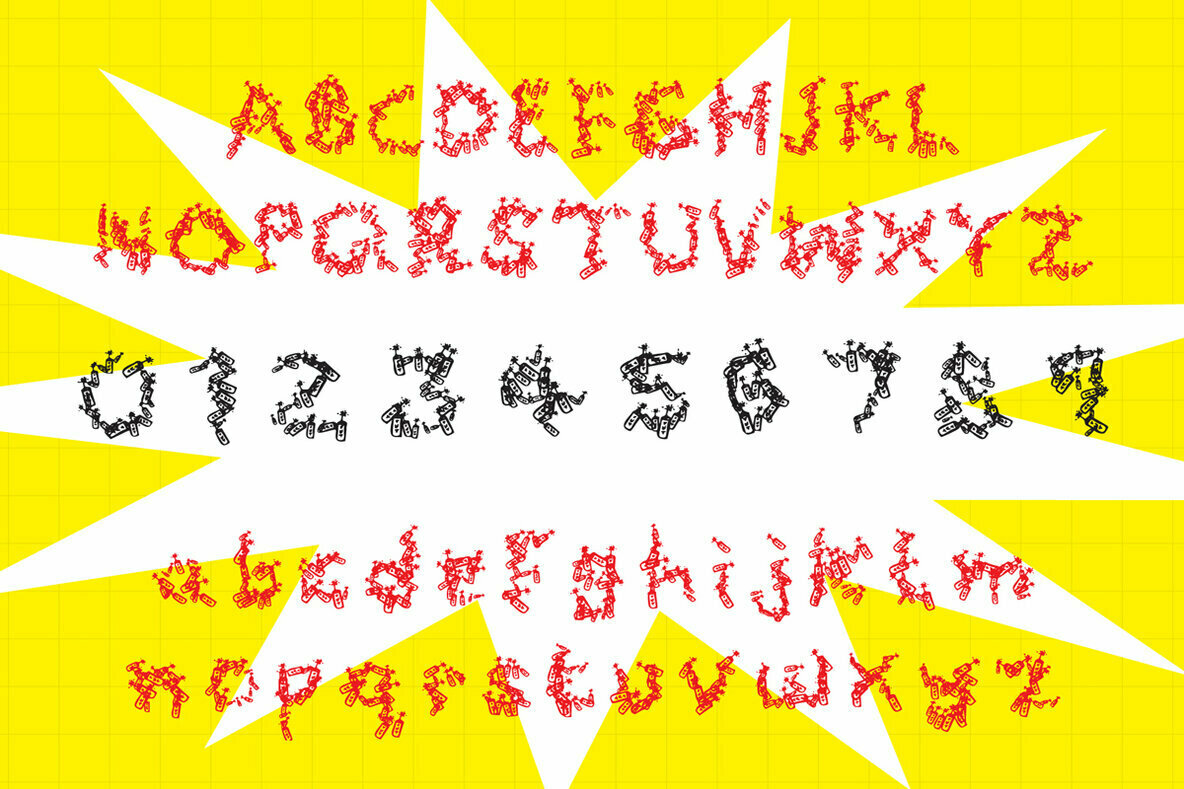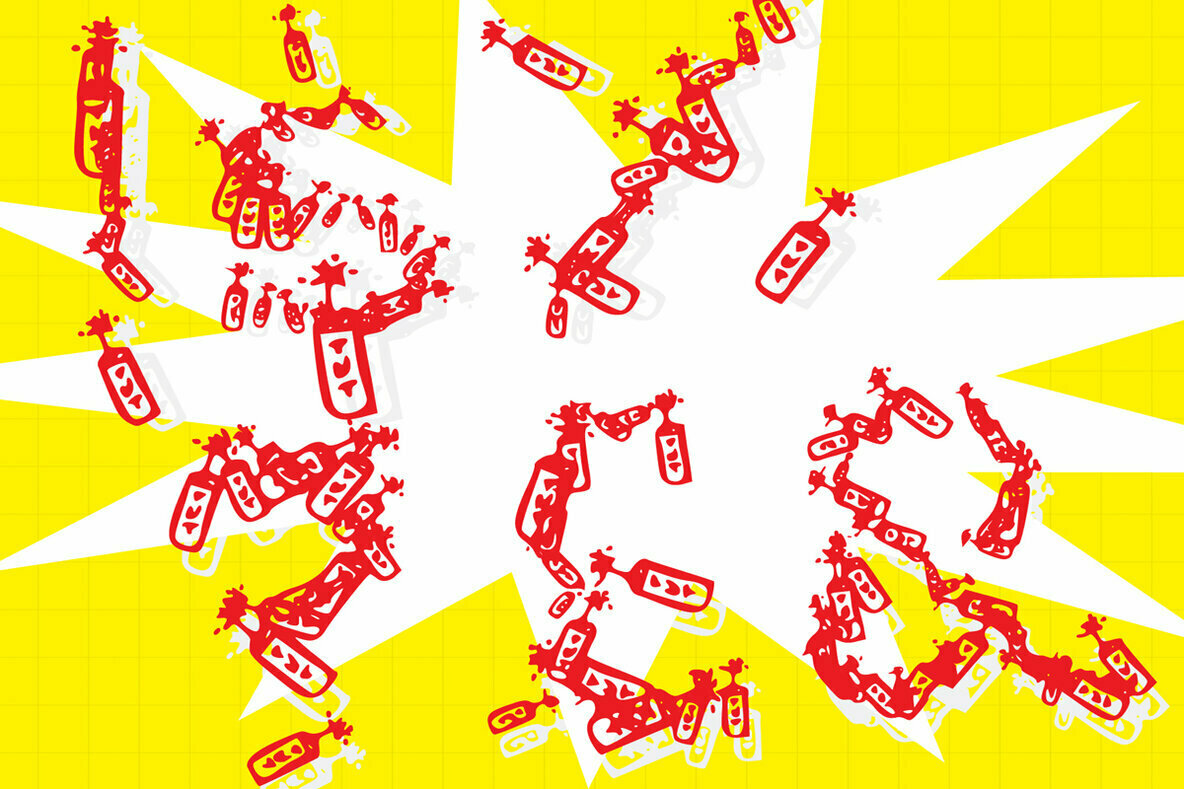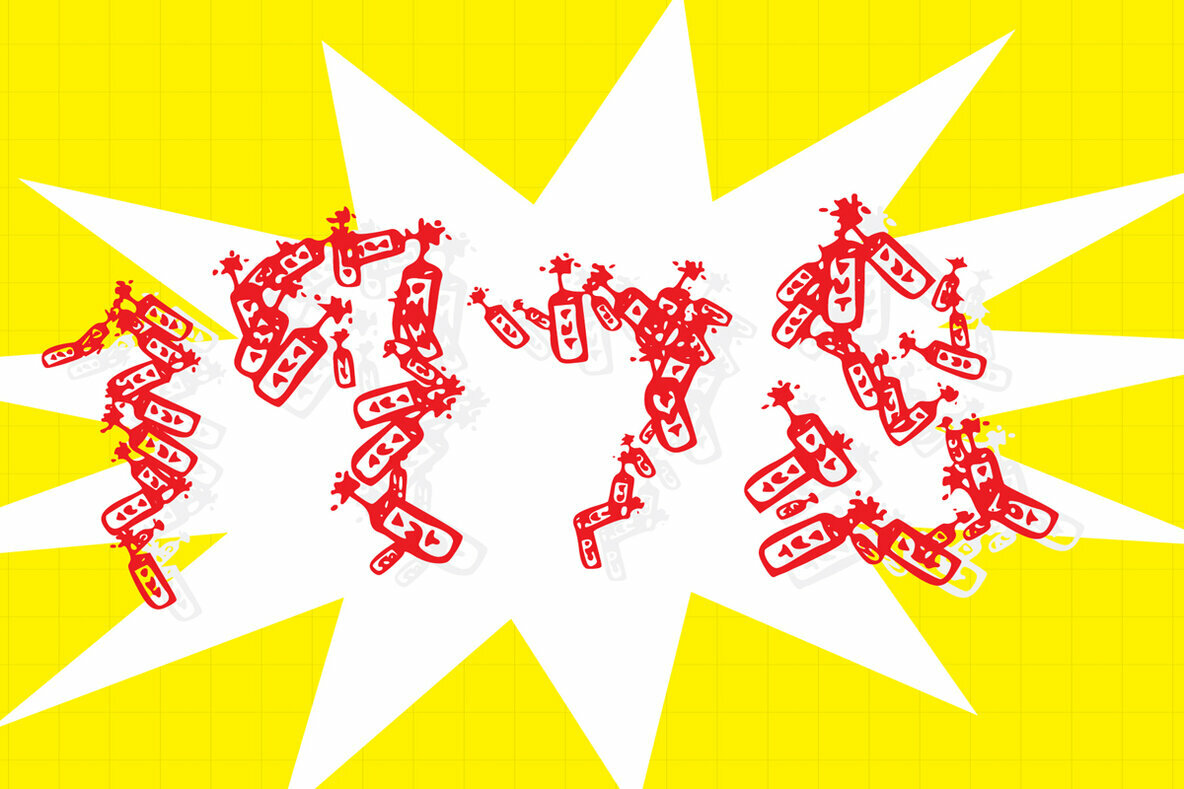
Kaboom Font
Kaboom
Kaboom is an incredibly interesting and unique display font. A little bit quirky, this font looks adept on a wide variety of contexts!